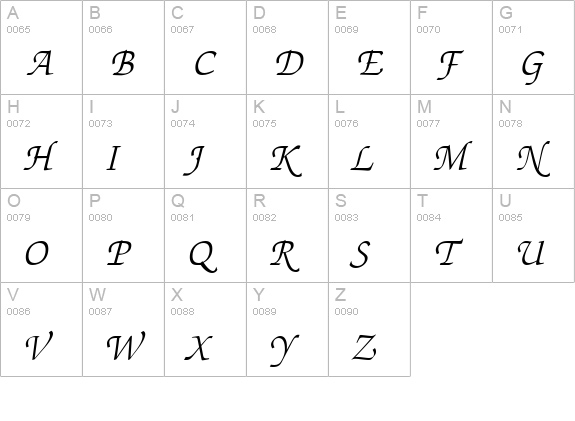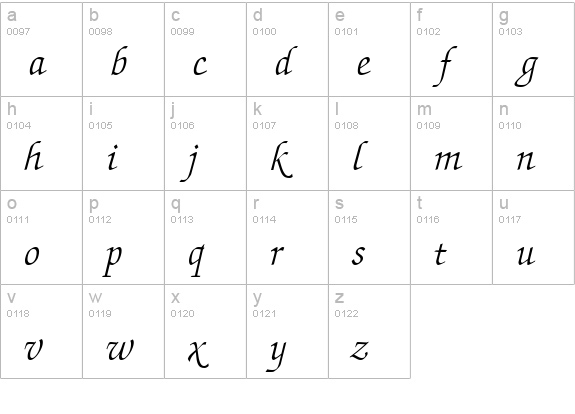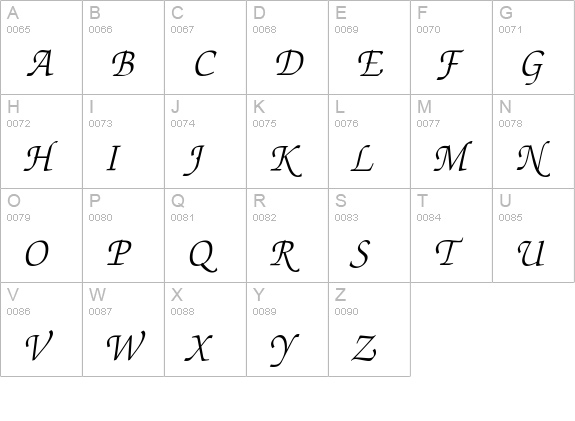
Chancery Script Light SSi Light Italic Font Details
Chancery Script Light SSi Light Italic is a refined, elegant, italic variant in the Chancery typeface family \xE2\x80\x94 well suited to elegant body text, refined sub-headings, and luxury branding.
Chancery Script Light SSi Light Italic font exudes elegance and sophistication with its delicate, flowing curves and graceful strokes. Perfect for adding a touch of sophistication to invitations, wedding cards, and other formal documents, this font strikes the perfect balance between traditional and modern styles. And the best part? Chancery Script Light SSi Light Italic font is available for free download at FontsMarket.com. Whether you're a designer looking for a unique typeface or an individual wanting to add a touch of class to your projects, this font offers the perfect solution. Don't miss out on the opportunity to enhance your designs with this beautiful and versatile font, now accessible at your fingertips.